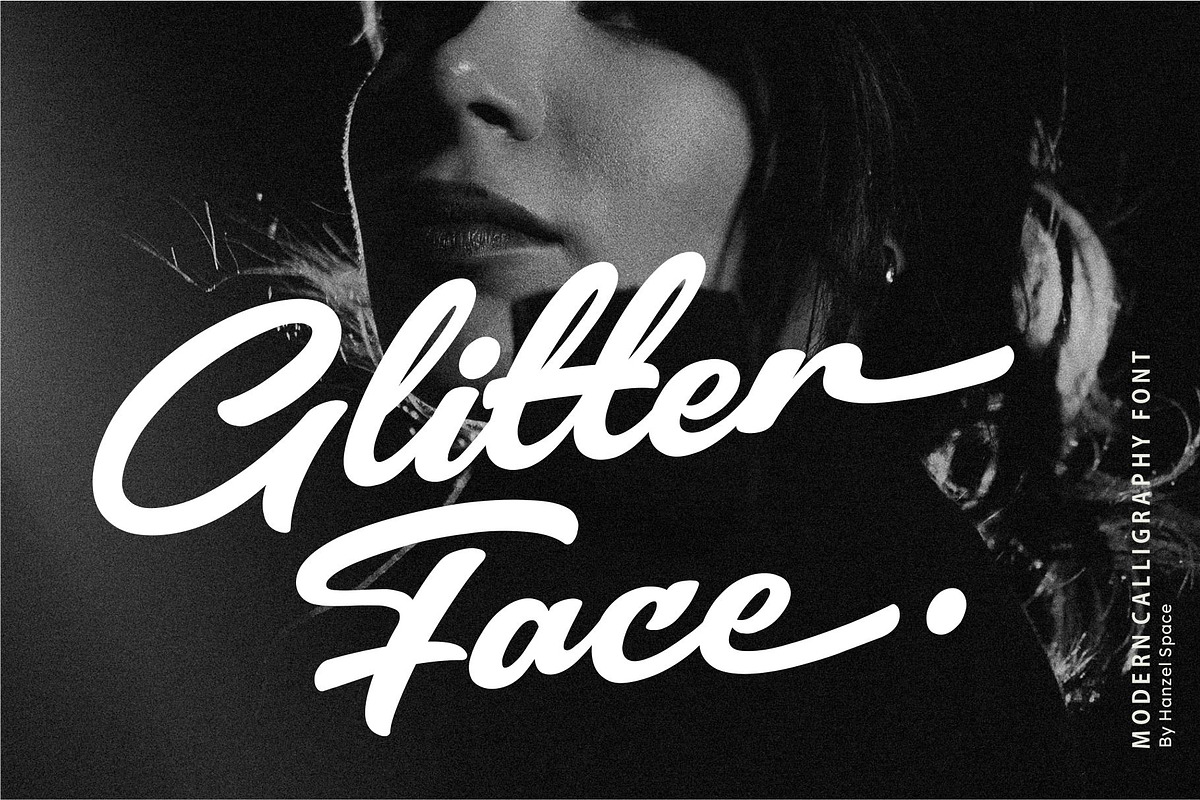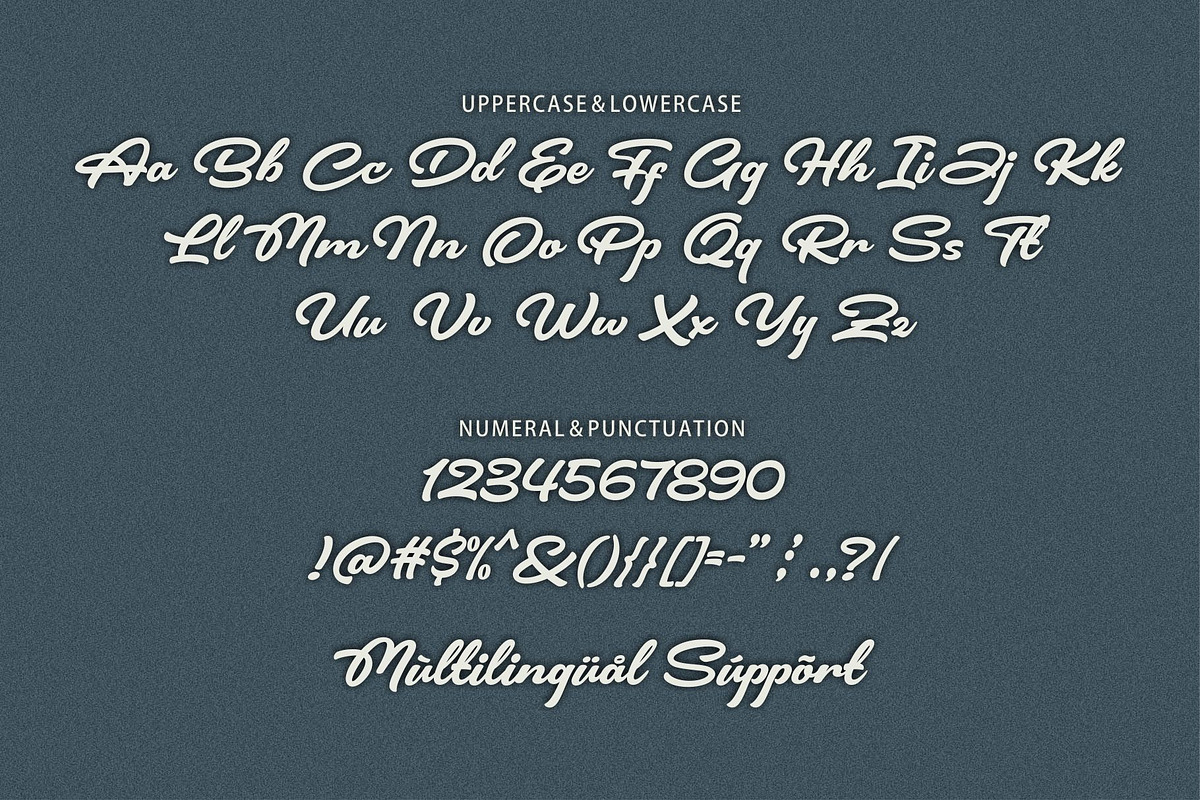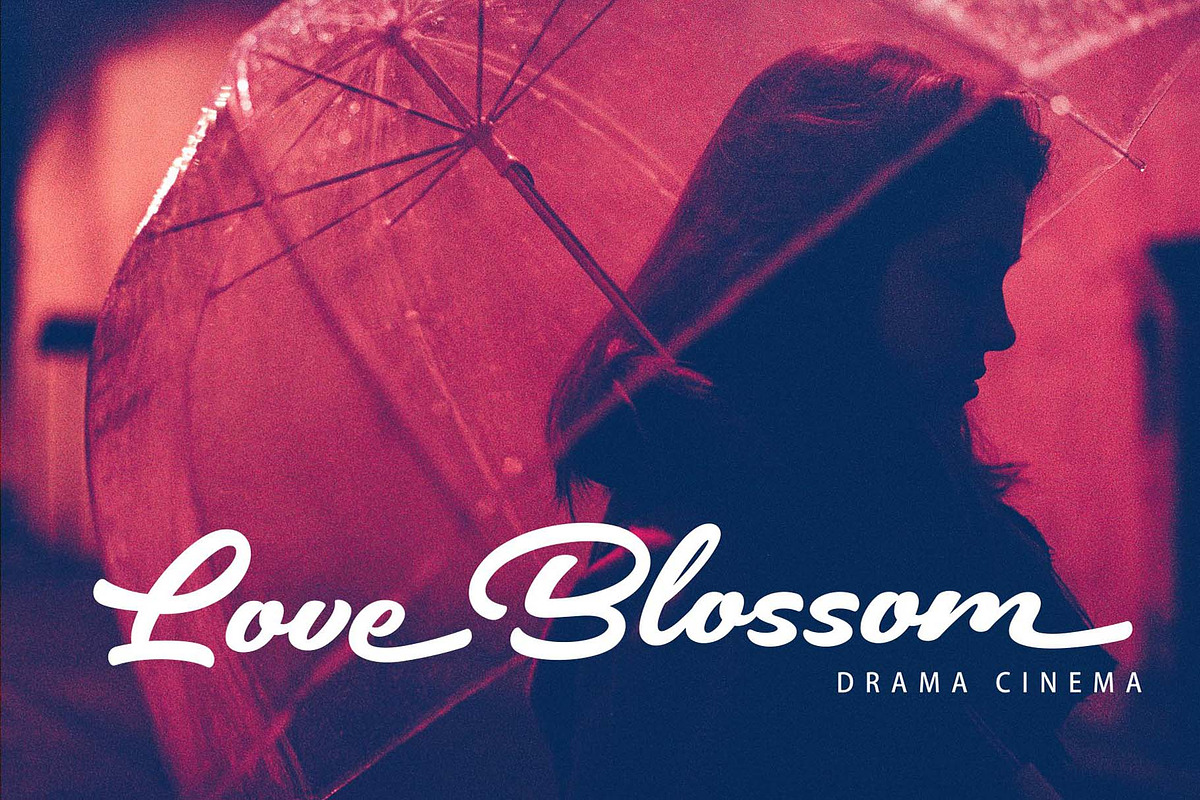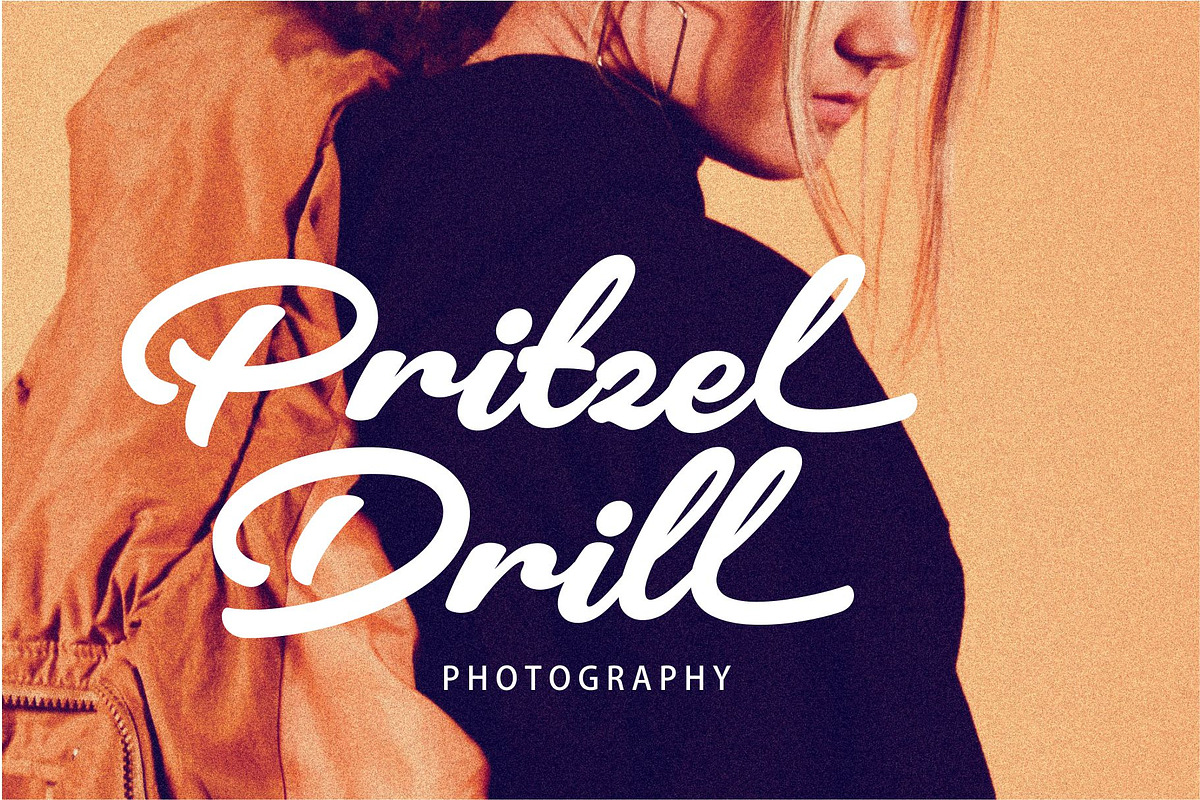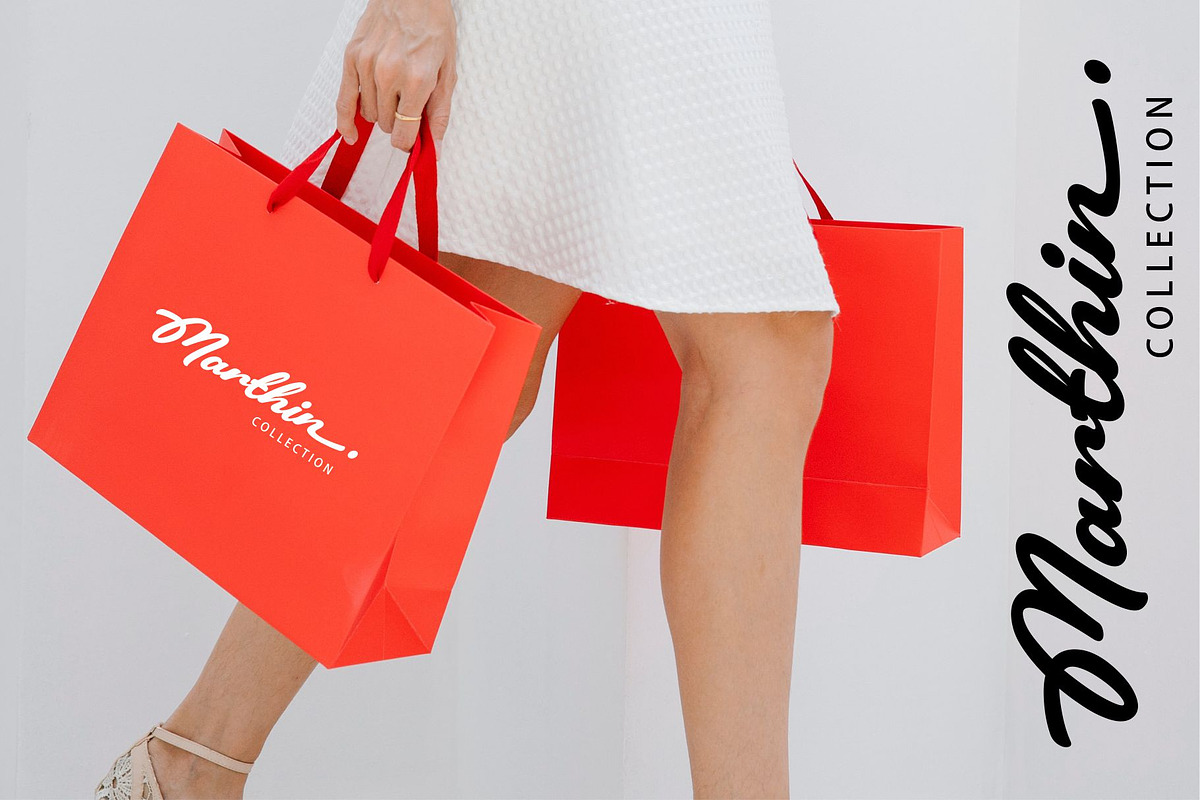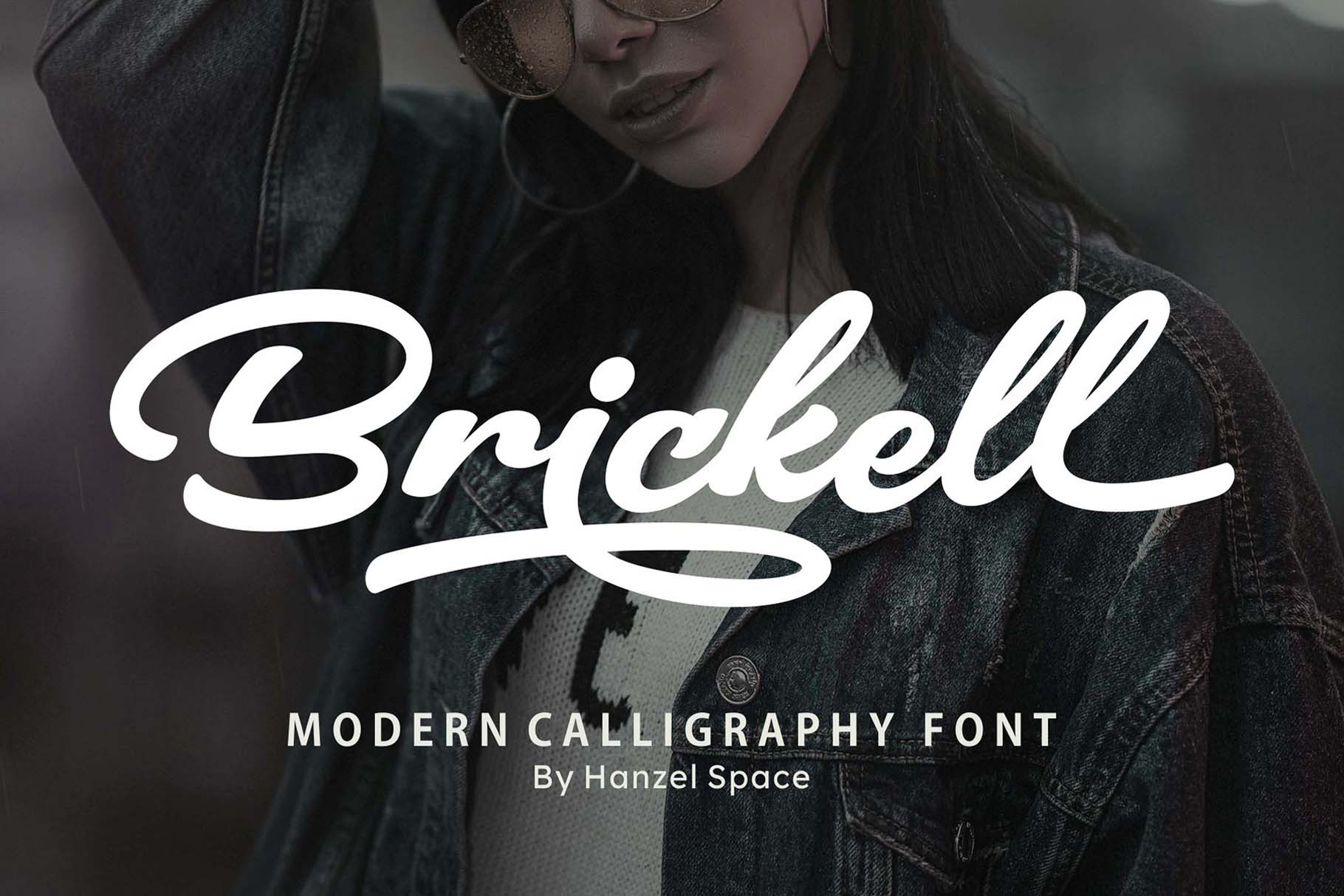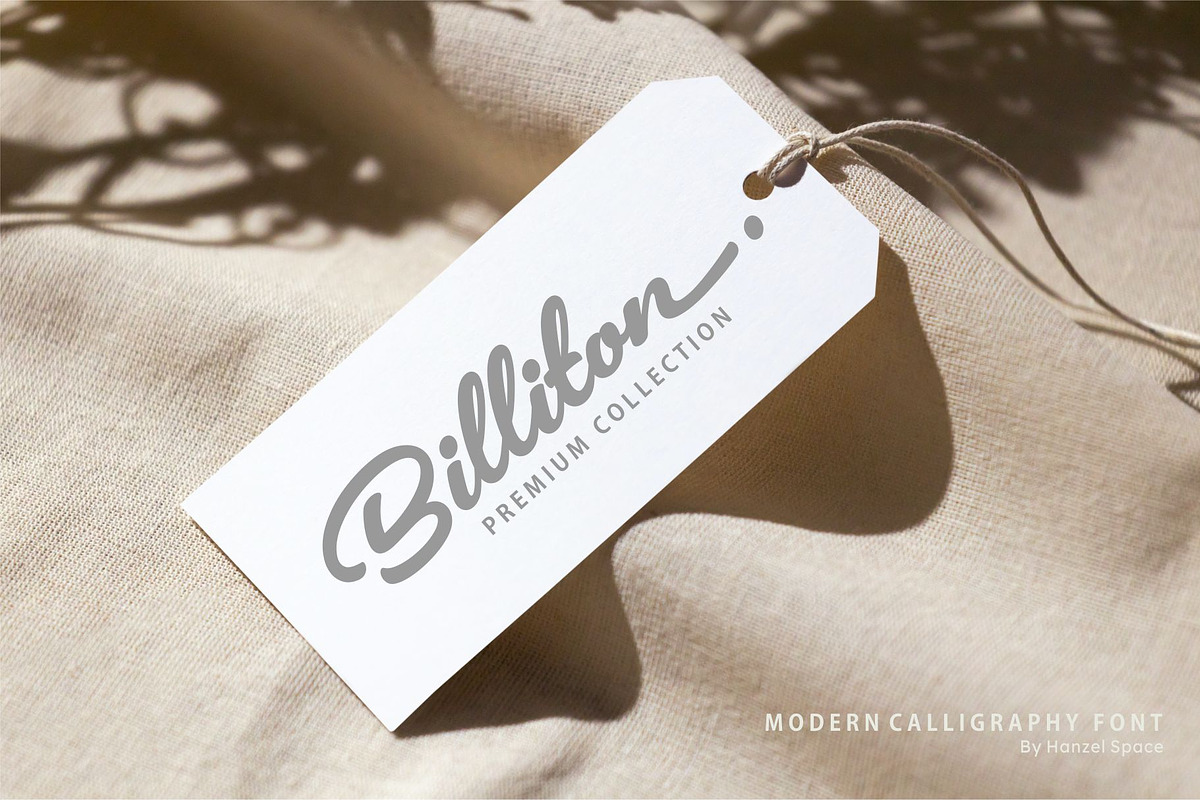
Brickell – Modern Calligraphy Font
Introducing Brickell Script Font. I created this font with a beautiful and beautiful touch, it has a very distinctive character and is interesting to look at. It looks refined, elegant and unique.
This font was created to help you designing logotype or lettering style logo for your Brand or your clients, and you also can use it for designing all of the graphic stuff such as badge, sign, packaging, headline, title, T-shirt/apparel,bPoster, etc.
Brickell was designed for personal characters such as strong, confidence, dynamic, readable, Energic, dynamic, etc.
Multilanguage
Ending Swash